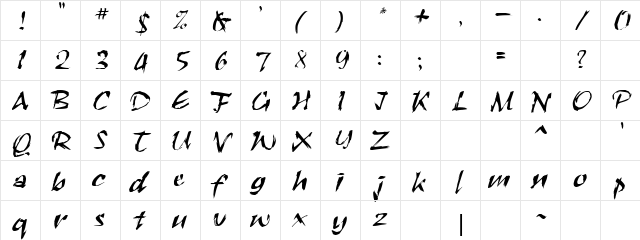
RoughBrush Regular
Design Context for RoughBrush Typeface
RoughBrush embraces imperfection — its rough, textured character adds raw authenticity to designs that want to feel lived-in and unconventional.
Suited to punk-influenced zines, underground music branding, streetwear, and raw, anti-corporate design.
Pro Tip: Pair RoughBrush with intentionally raw or lo-fi design elements. Fighting against it with overly polished surroundings will undermine its personality.